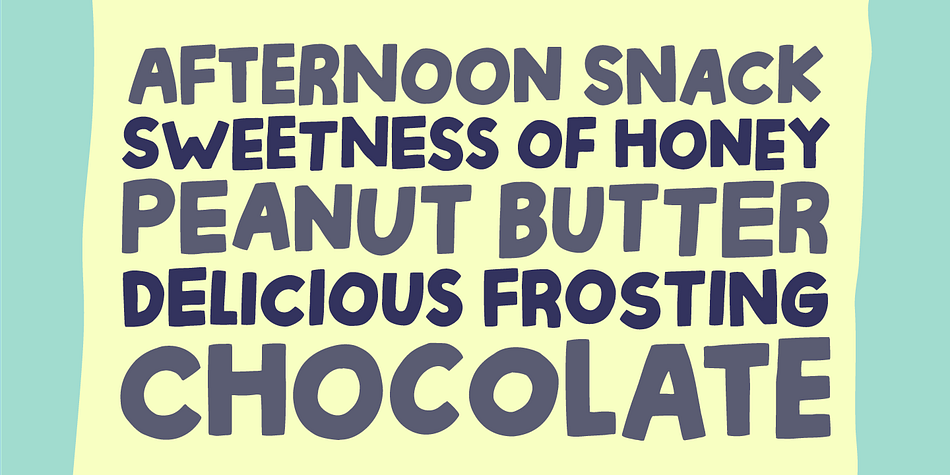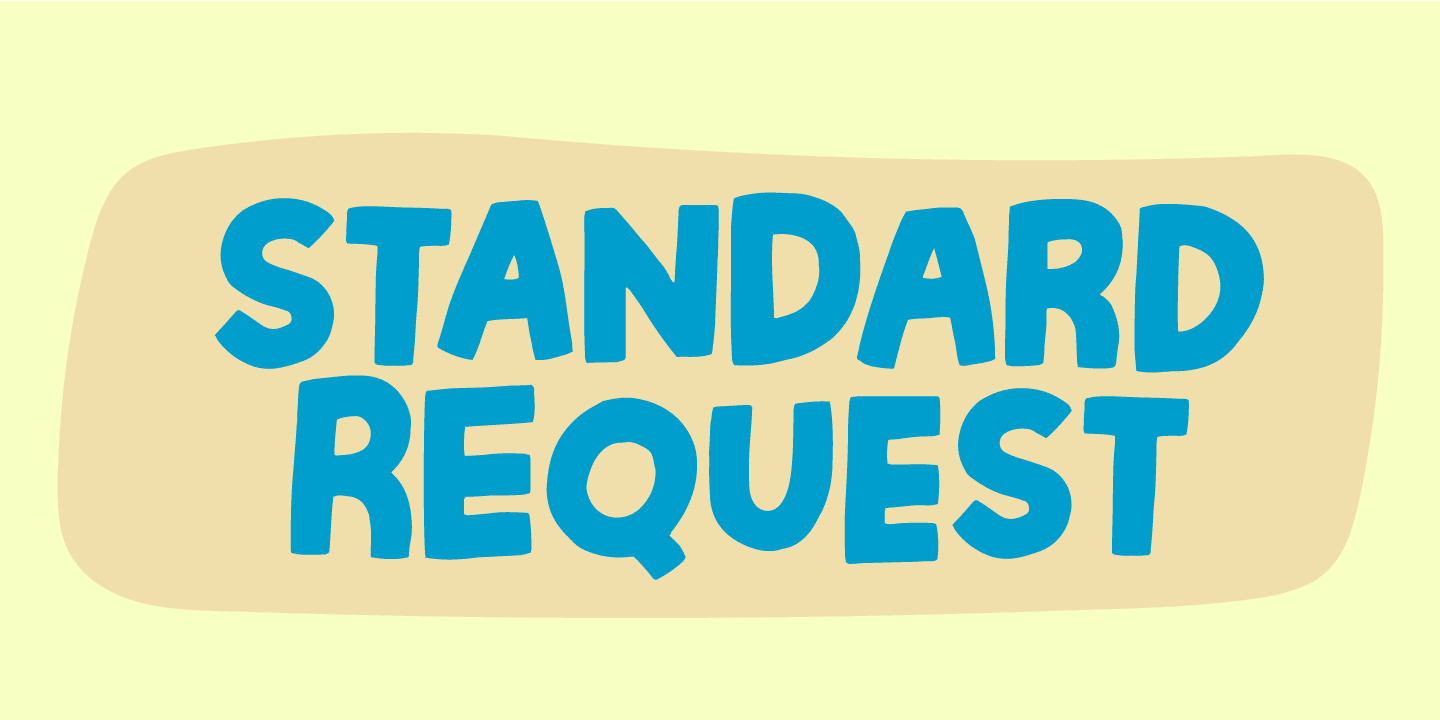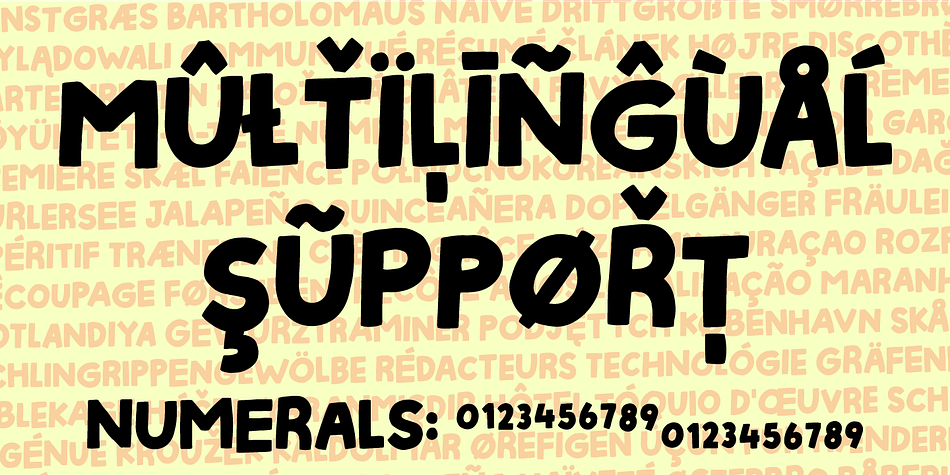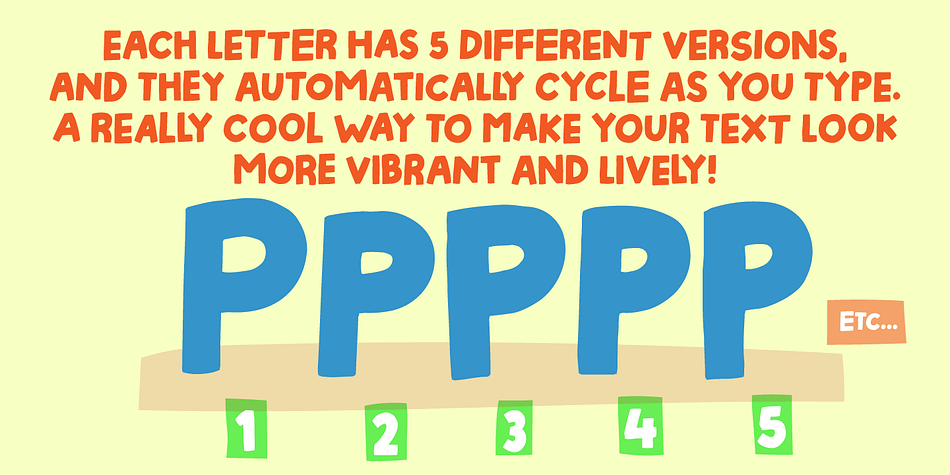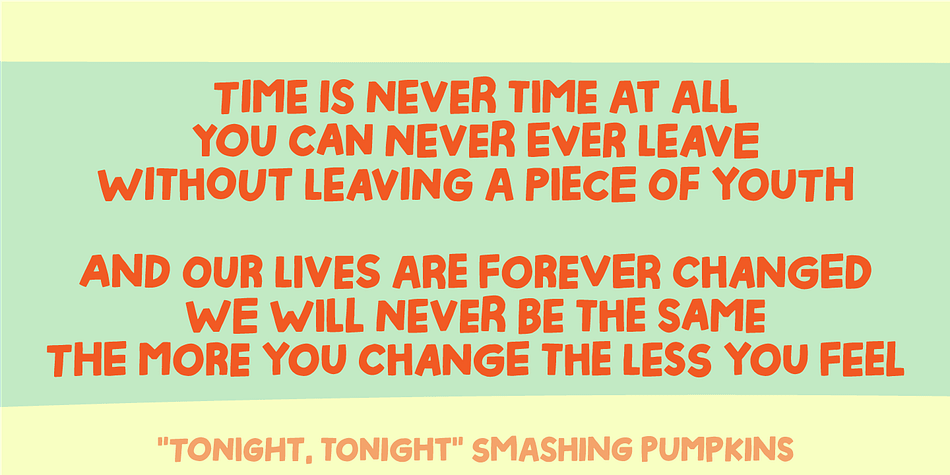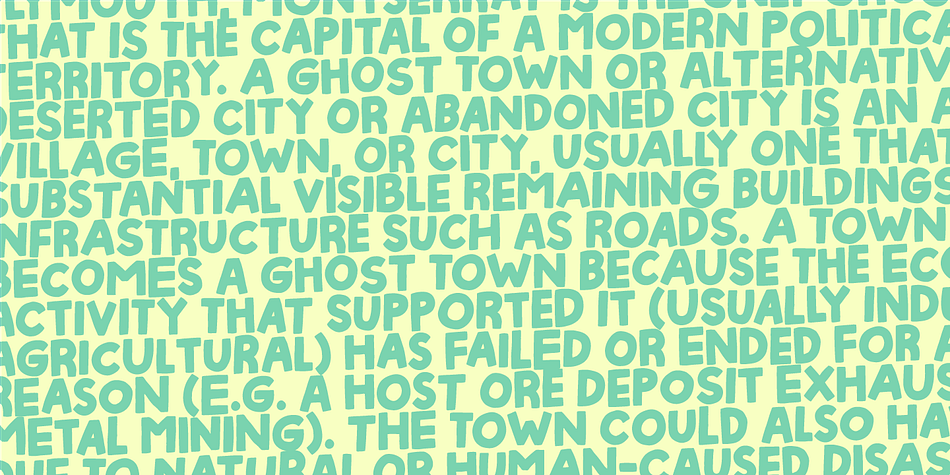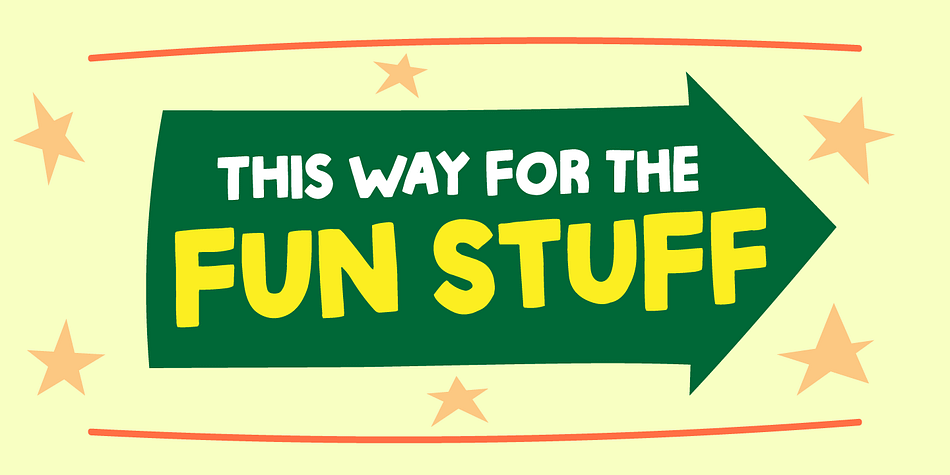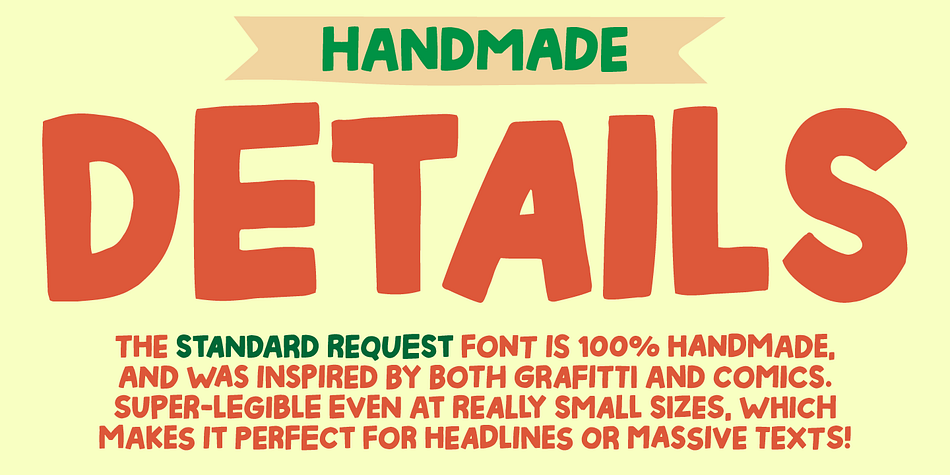
Standard Request
Designed by Jakob Fischer, Standard Request is a hand display font family. This typeface has two styles and was published by Bogstav.
Standard Request is 100% handmade, and was inspired by both grafitti and comic book lettering. When viewed at large sizes, the handmade look and feel really stands out - at the same time, Standard Request, is super legible even at really small sizes.
I’ve added 5 slightly different versions of each letter, and they automatically cycle as you type!